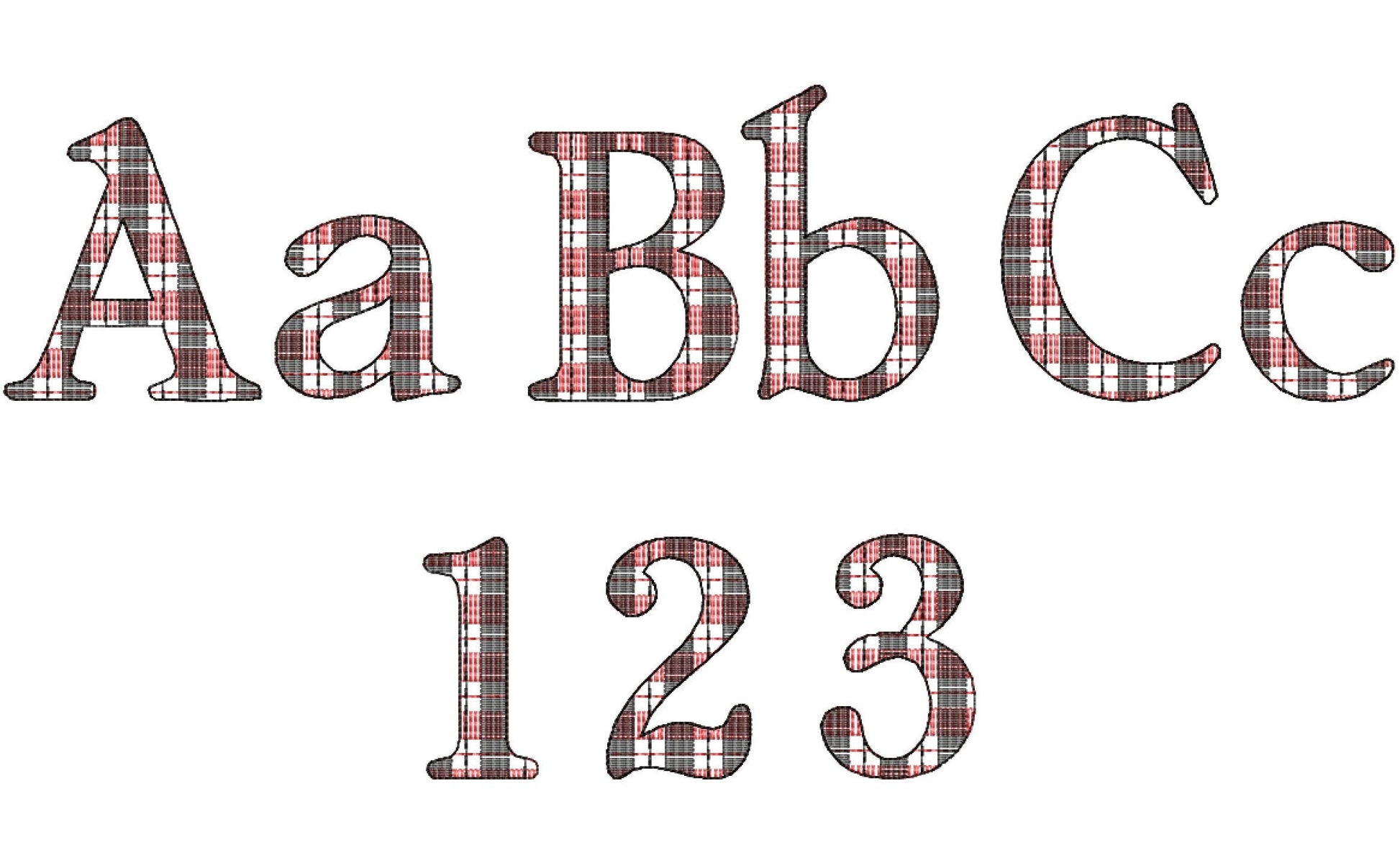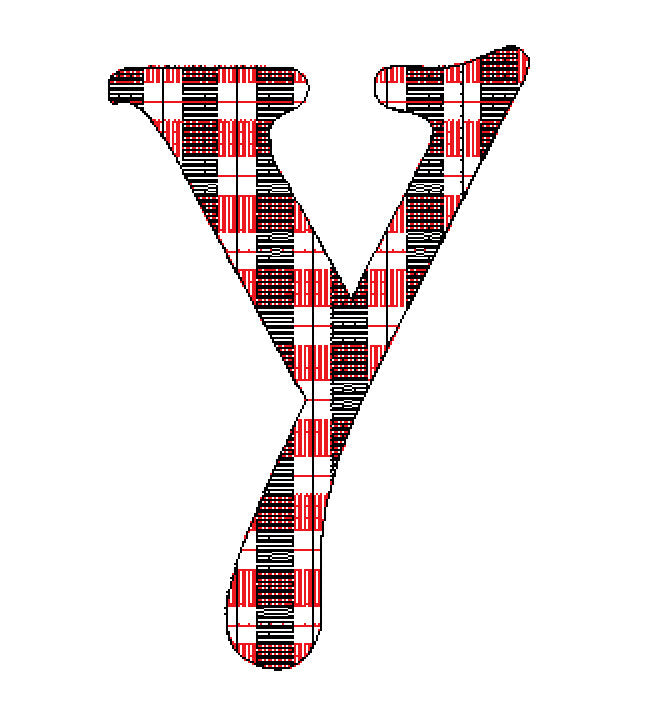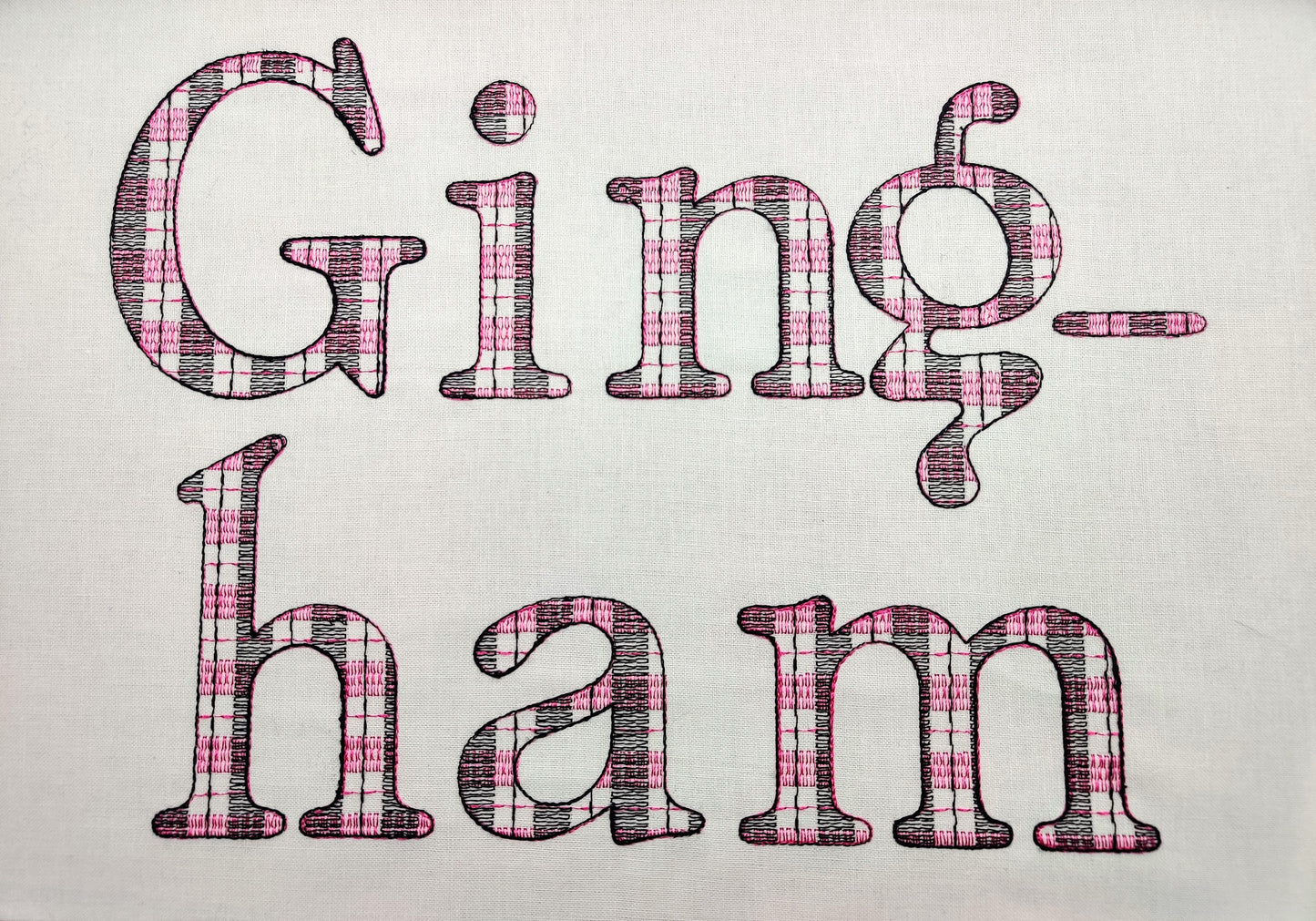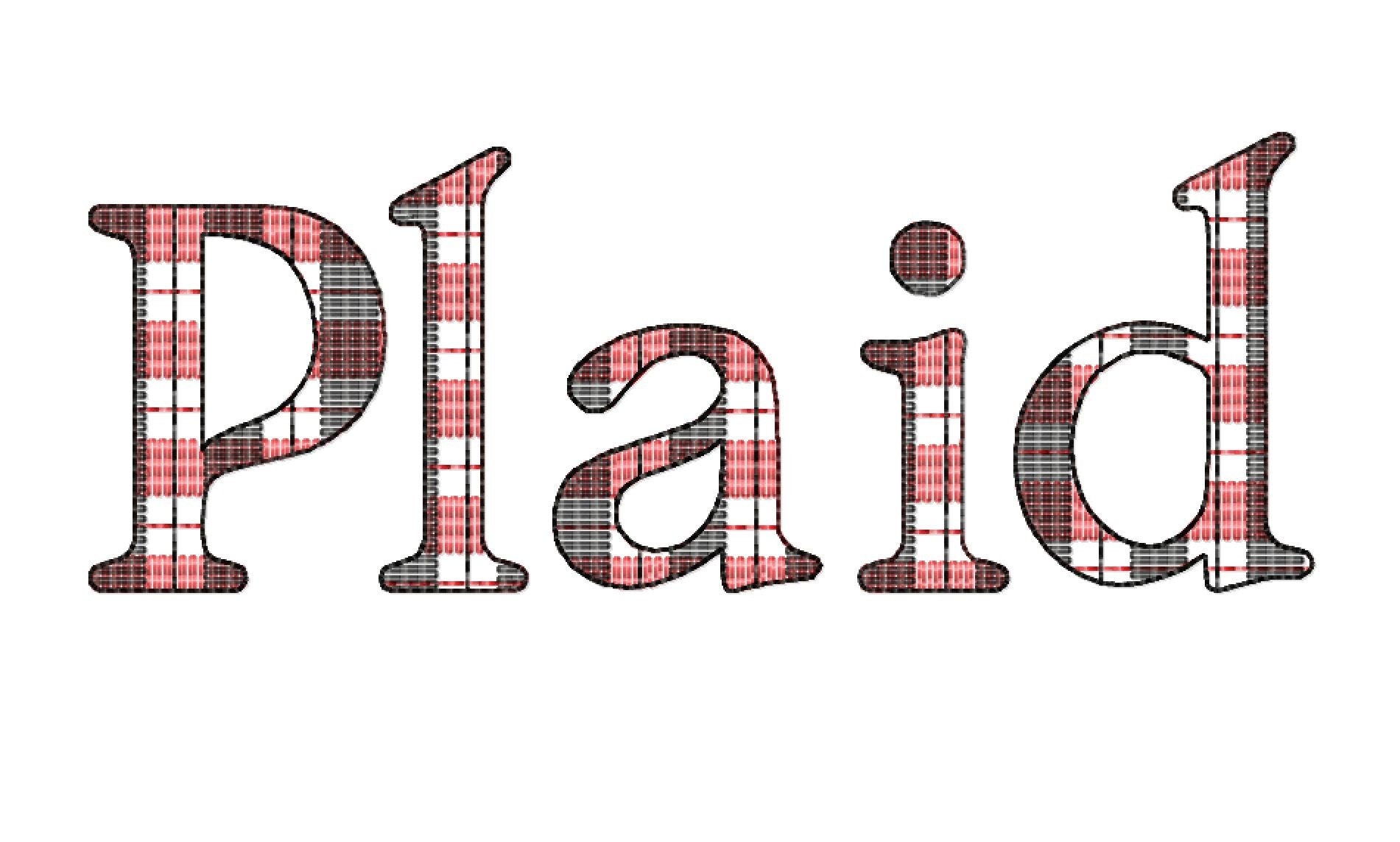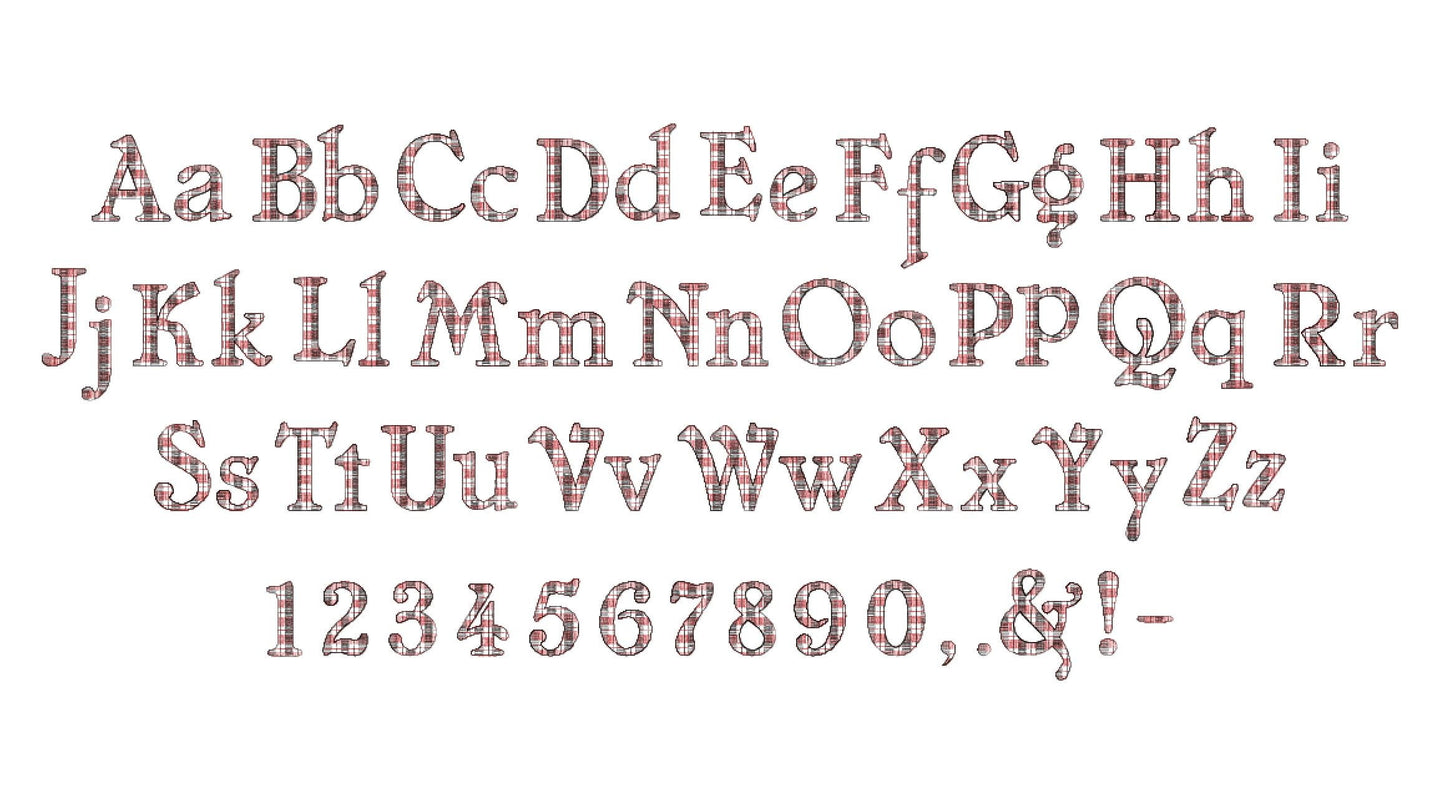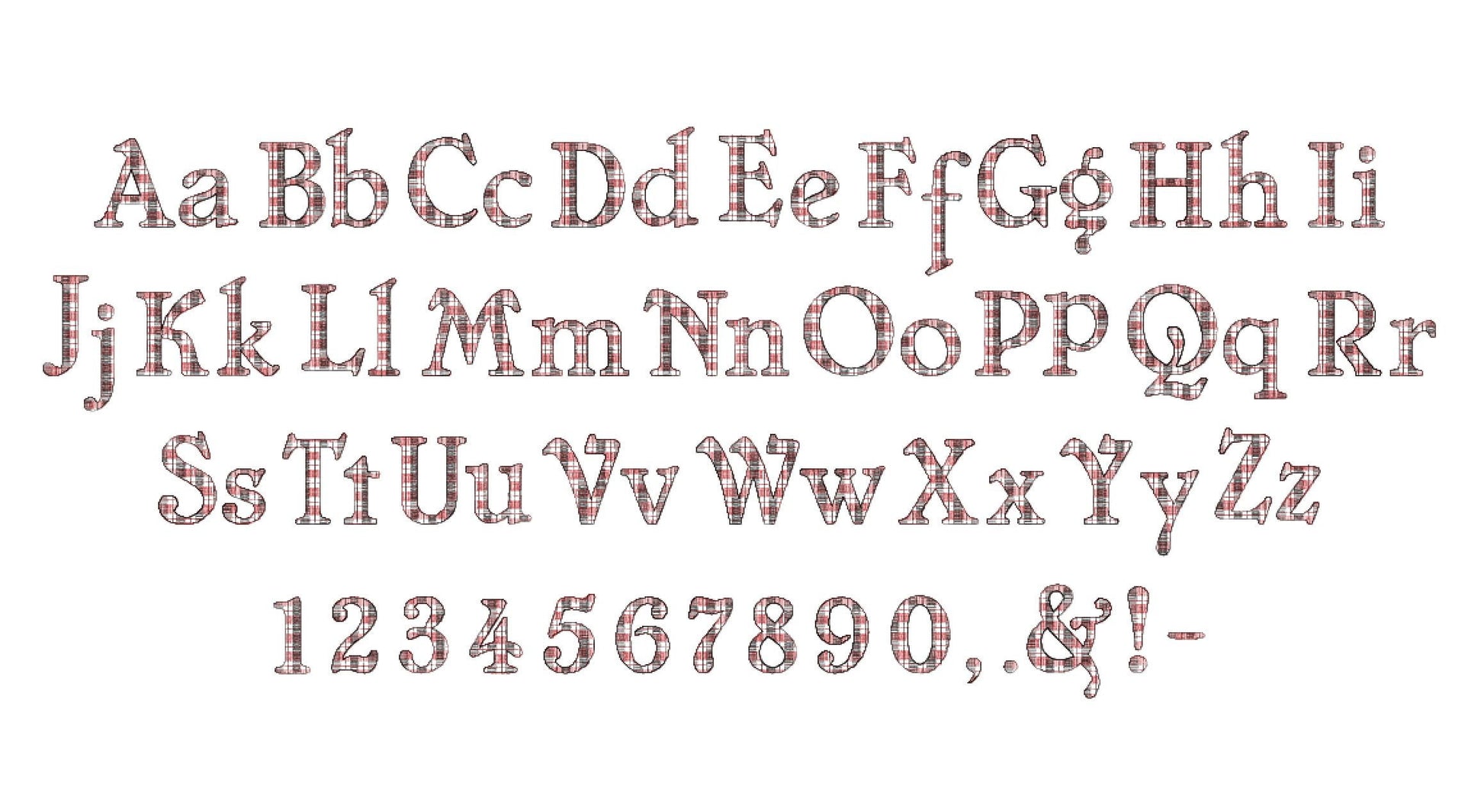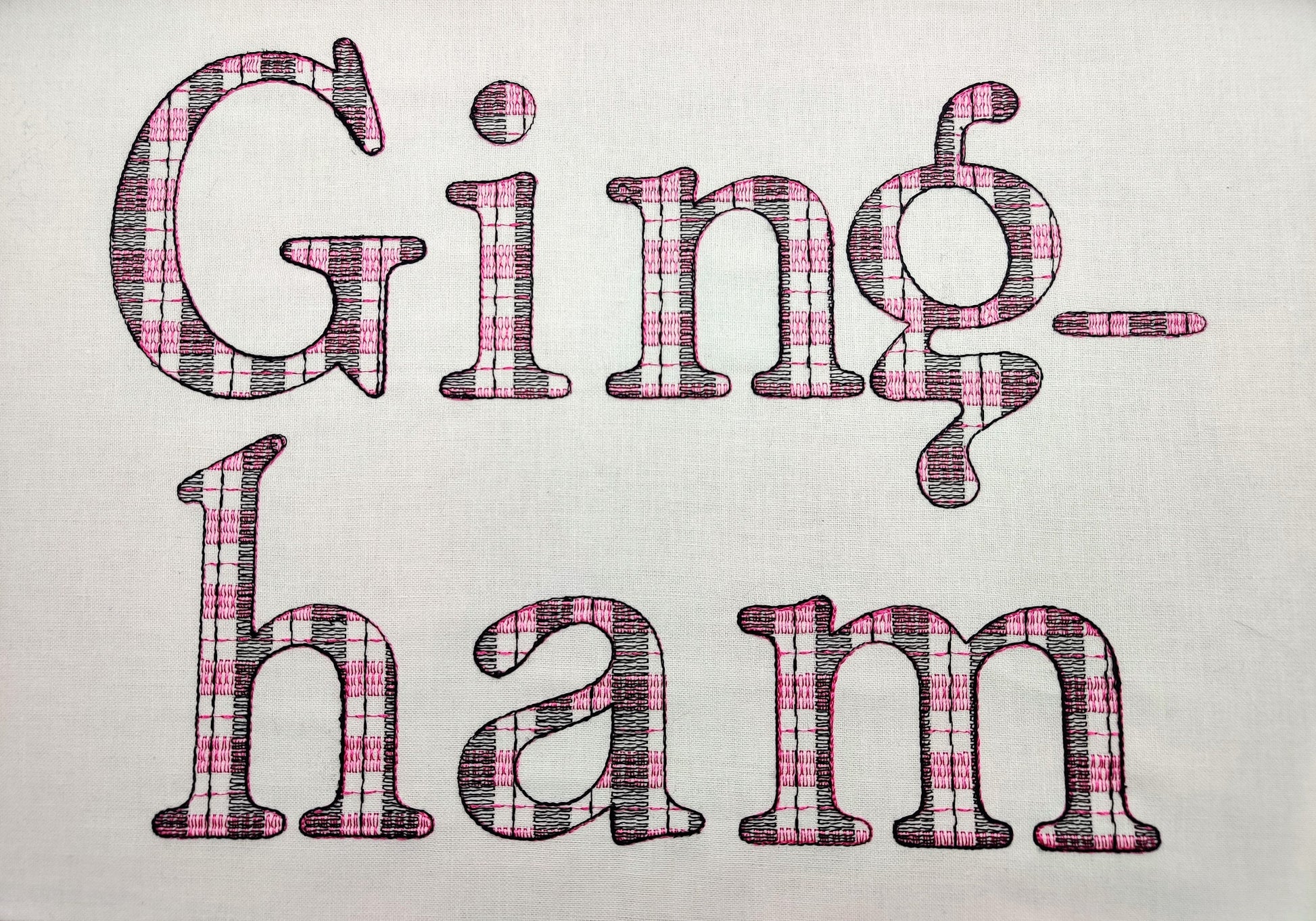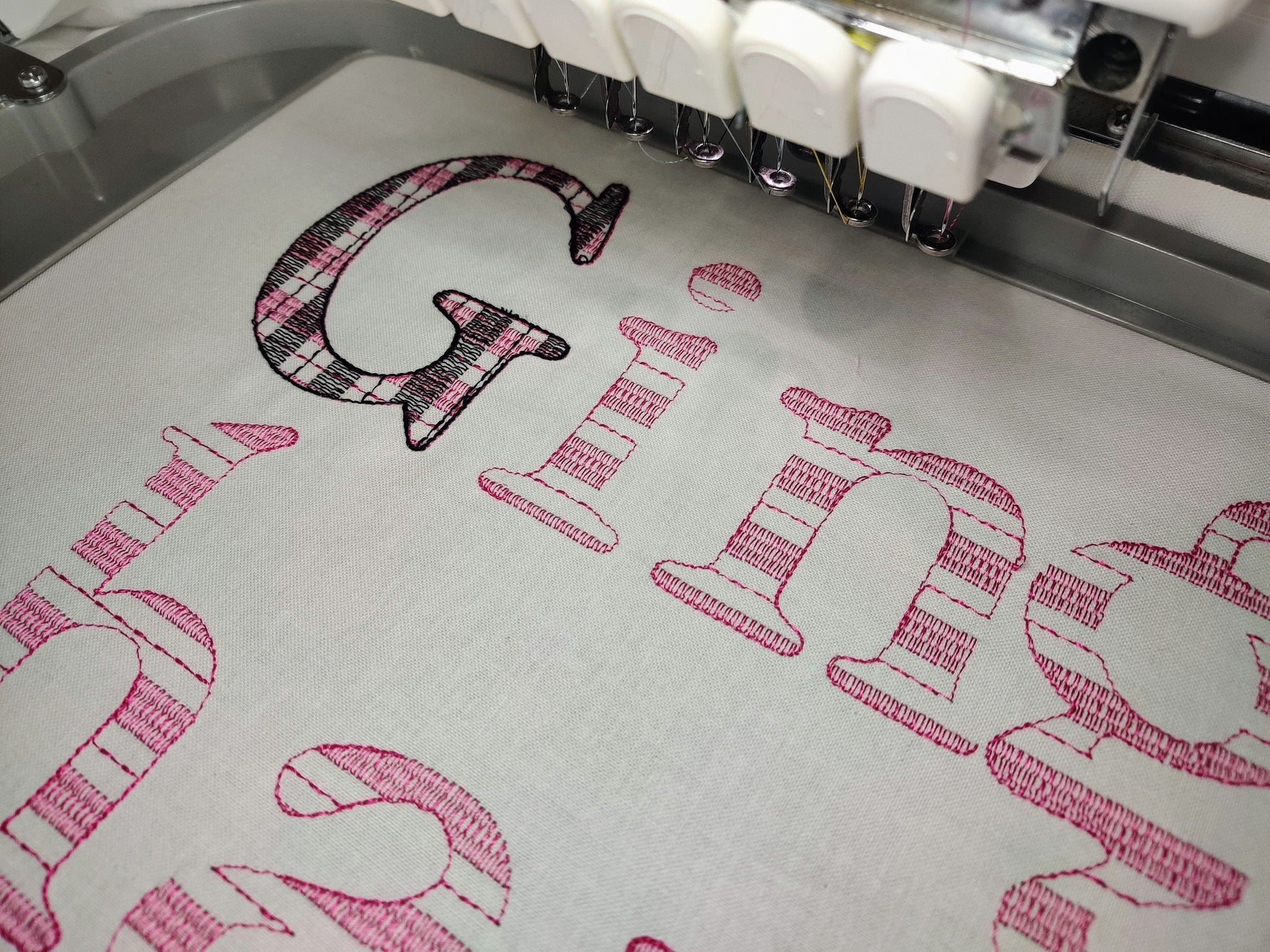
Or click to open the linkA buffalo gingham font in quick light sketch stitching; the gingham lines are part of the letters and the fabric shows through. Cozy for pillows, stockings, shirts and names.